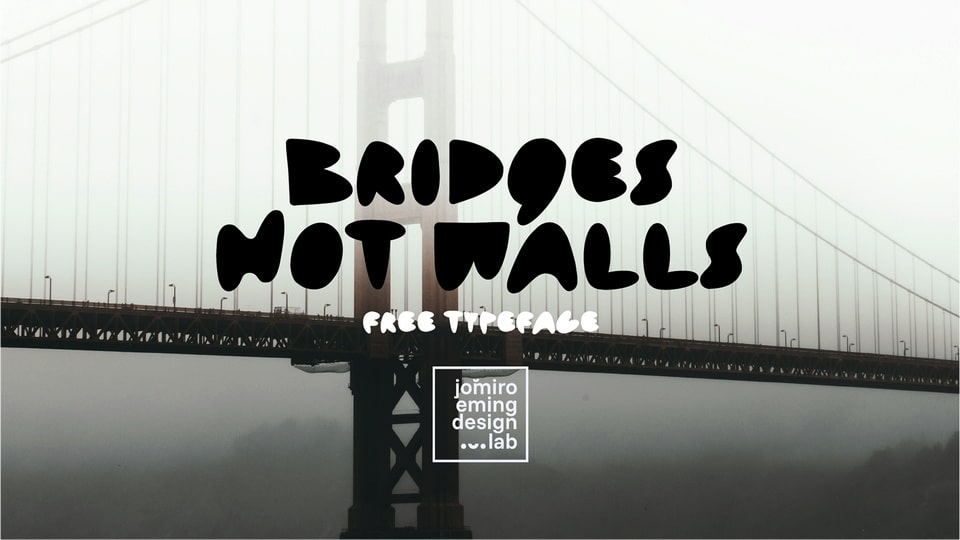
Download Bridges Not Walls font, a bold and rounded hand-crafted typeface with a distinctive no-white-space design, creating a seamless and impactful appearance that grabs attention.
Designer: Jomiro Eming